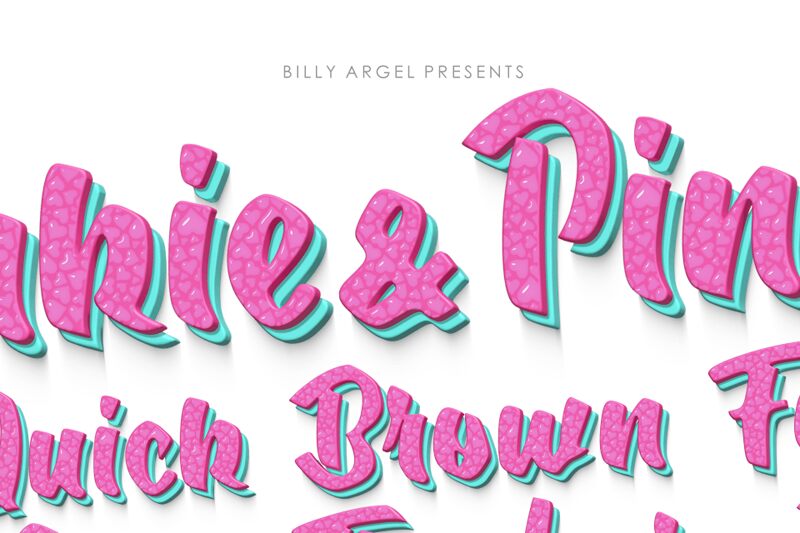
Binkie & Pinkie font is a playful cursive bold free font designed and published by Billy Argel Fonts. Inspired by the dynamic flow of brush strokes, the typeface has a handwritten energetic feel that communicates almost like an artwork or a drawing. Its informal letters combine high contrast with decorative elements to create an expressive mood full of joy and positive emotions. A shadowed effect further accentuates each letter’s stylish curves and waves.
This is the ideal fun font for plenty of use cases including logo design for kids’ products, neon signage design, product packaging, merchandise branding, invitation cards for weddings or birthdays, cartoon posters, book covers, handwritten quotes typography art pieces…